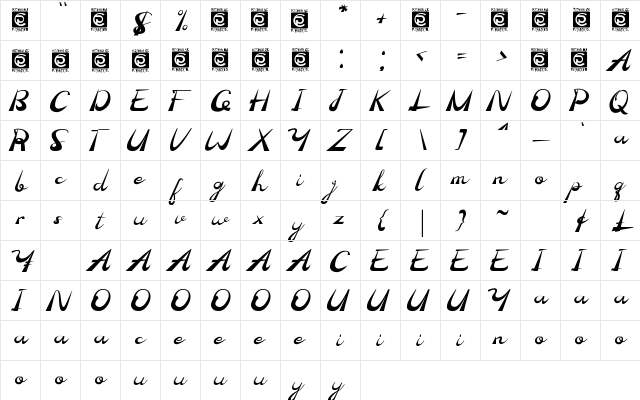
Madhen Regular
| Foundry | Putracetol Studio, Karanganyar. |
| Designer | Putra Novembria Candra Kusuma |
Design Context for Madhen Typeface
Madhen is a composed and adaptable typeface that performs quietly and consistently across a wide range of design contexts.
Pro Tip: Pair Madhen with a font of contrasting weight or personality to build a more expressive typographic hierarchy.